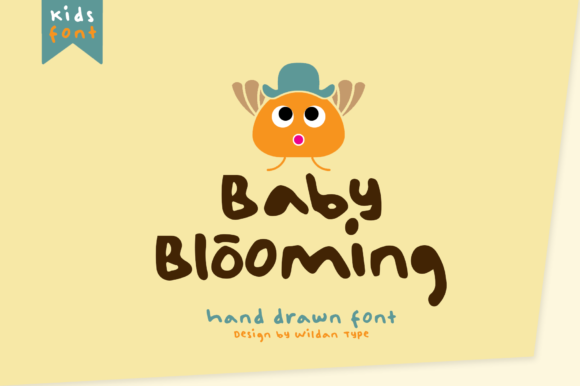
Welcome to the world of Baby Blooming Font, a whimsical and delightful display font that's sure to captivate your heart. As you browse through this collection, immerse yourself in the enchanting realm of creativity and expression. Each character in the Baby Blooming Font family is a work of art, meticulously crafted to spread happiness and uplift spirits.
This font is the perfect choice for capturing the vibrant energy of childhood. Its playful and fun style will bring life to any children's activity or school project. Imagine the joy on your child's face as they see their favorite stories and characters come to life in Baby Blooming's charming letters.
Whether you're creating invitations for a birthday party, designing posters for a school play, or crafting personalized gifts for loved ones, Baby Blooming Font is your perfect companion. Its versatility knows no bounds, making it the ideal choice for a wide range of creative projects.
So, dive into the world of Baby Blooming Font today and let your imagination soar. Let each letter be a brushstroke of joy, adding color and cheer to your creations. Embrace the playful spirit of this font and let your creativity bloom like never before.